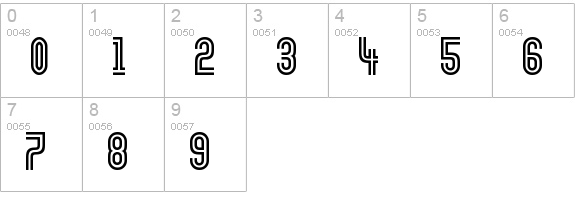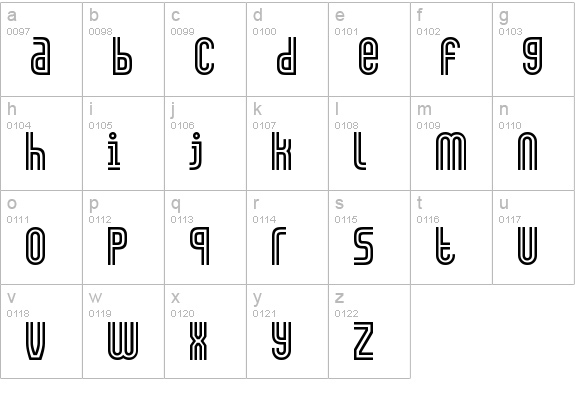
Ciudad De Mexico Font Details
Ciudad De Mexico font is a stunning and versatile typeface that captures the vibrant spirit and rich cultural heritage of Mexico City. With its elegant curves and unique design elements, this font is perfect for adding a touch of sophistication and authenticity to your projects. This font is not only visually appealing but also highly readable, making it suitable for a wide range of applications, from branding and advertising to editorial design and beyond. Whether you're designing a poster, creating a logo, or working on a website, Ciudad De Mexico font will help your text stand out and make a lasting impression. Best of all, Ciudad De Mexico font is available for free download at FontsMarket.com. So go ahead and elevate your designs with this beautiful and stylish typeface today!